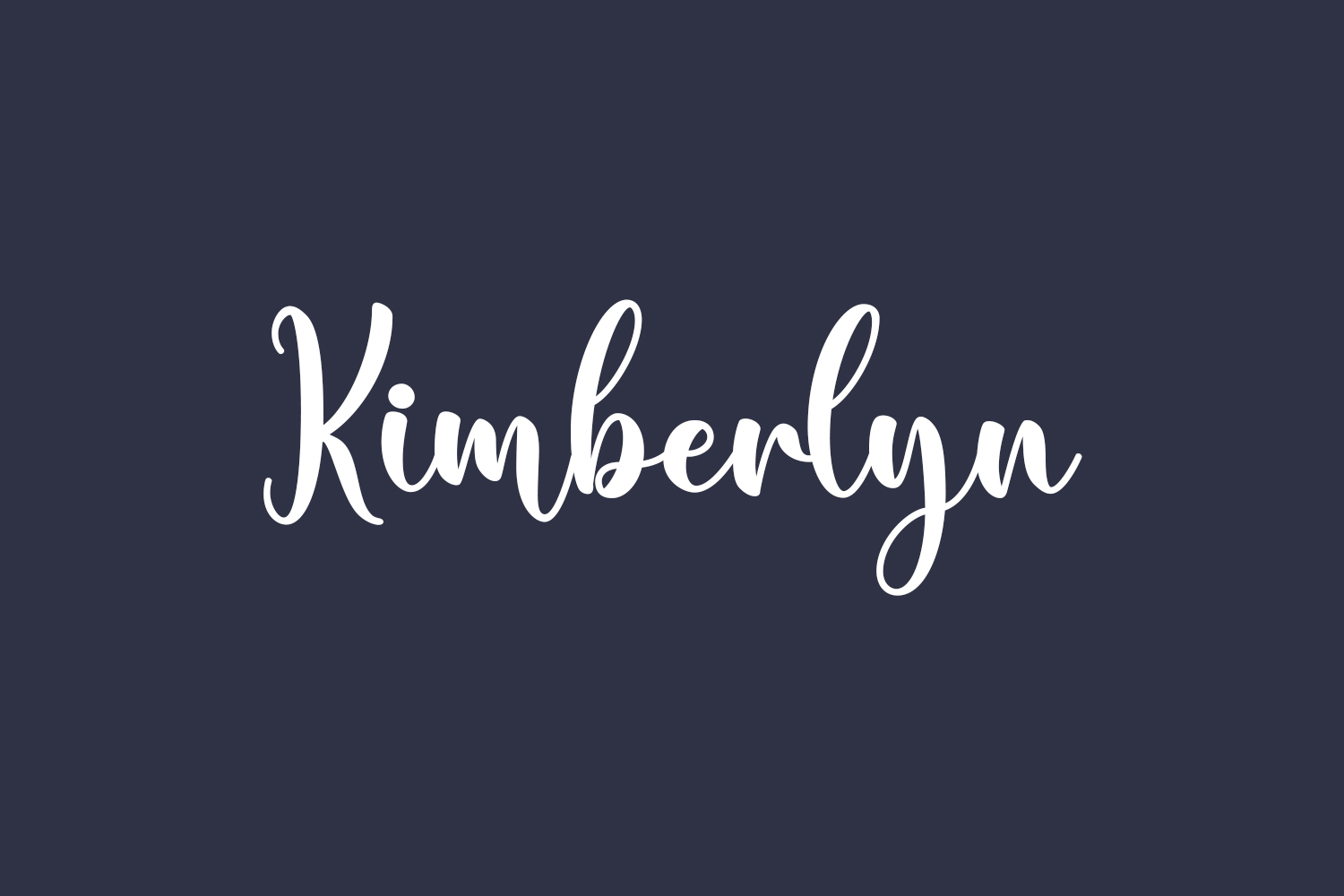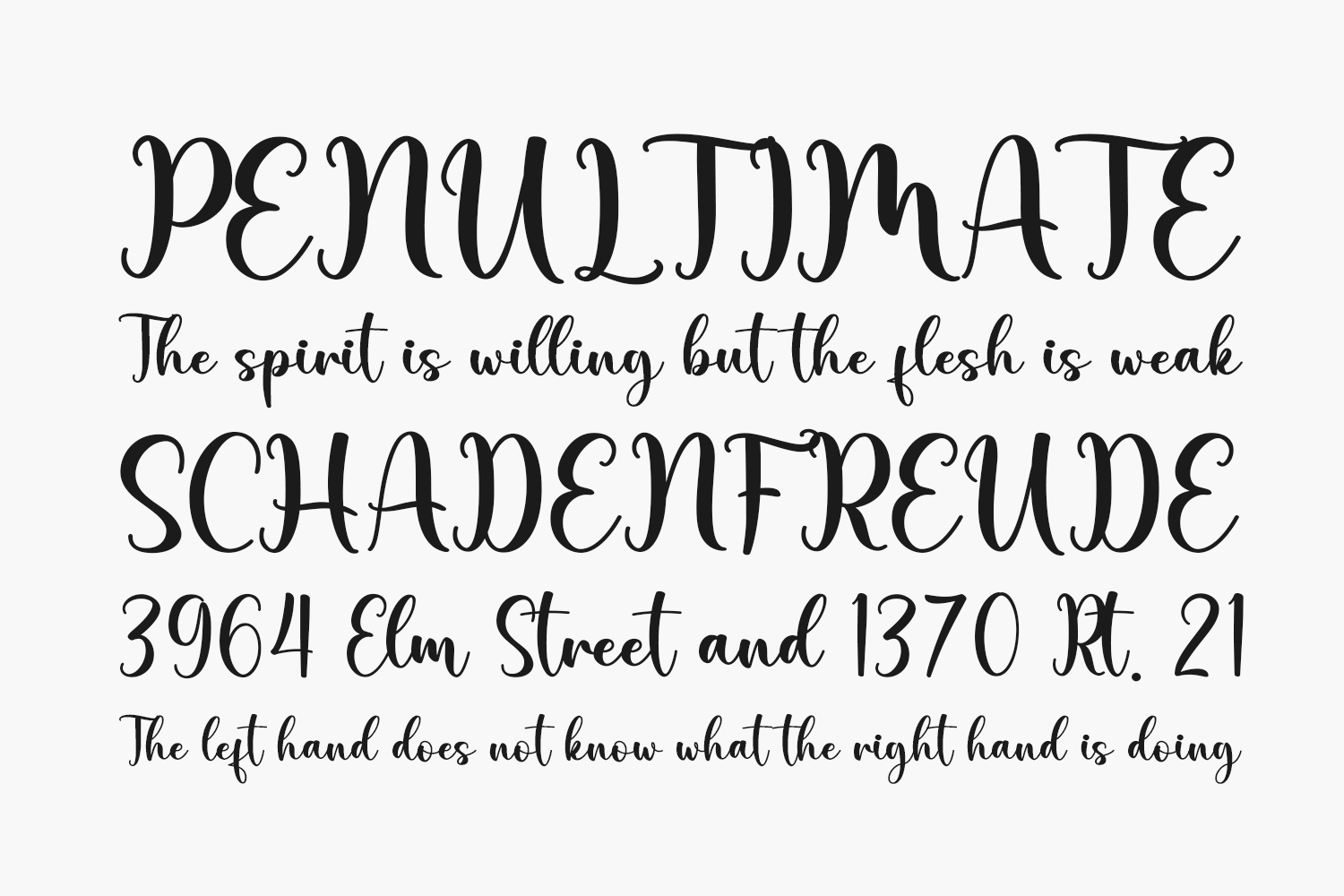
Kimberlyn is a graceful and timeless handwritten script font designed by Nirmala Creative to bring elegance and warmth to your creative projects. With its soft curves, flowing strokes, and charming character, this free font works perfectly for crafting beautiful logos, wedding invitations, social media quotes, greeting cards, and more. Available in TTF and OTF formats — ideal for designers seeking a stylish, hand-drawn look with strong readability.
Why Choose Kimberlyn?
- Timeless Handwriting Style: Mimics natural penmanship for a warm, personal touch.
- Ideal for Invitations: Perfect for weddings, baby showers, or formal stationery sets needing a romantic tone.
Where to Use Kimberlyn?
Kimberlyn shines across a variety of creative applications:
- Logos & Branding: Adds charm to brand identities of fashion labels, beauty brands, or boutique shops.
- Wedding Invitations: Perfect for RSVP cards, envelopes, or elegant bridal name typography.
- Social Media Quotes: Creates bold text overlays for Instagram Stories, Pinterest pins, or TikTok videos.
- Greeting Cards & Letters: Brings warmth to birthday cards, love letters, or thank-you notes.
- Packaging Design: Ideal for product labels on handmade crafts, candles, or artisanal goods.
Design Tips with Kimberlyn
To get the most from Kimberlyn, pair it with clean sans-serif fonts like Galette or Gretaros for contrast and readability. Use this font at large sizes to highlight its expressive strokes and fluidity. For digital use, apply it over pastel backgrounds or floral textures to enhance its elegant appeal. Try our interactive font preview tool below to test Kimberlyn with your own text before downloading!
- Glyphs: Basic Latin (A-Z, a-z, 0-9, punctuation), Extended Latin.
- Language Support: English, Spanish, French, German.